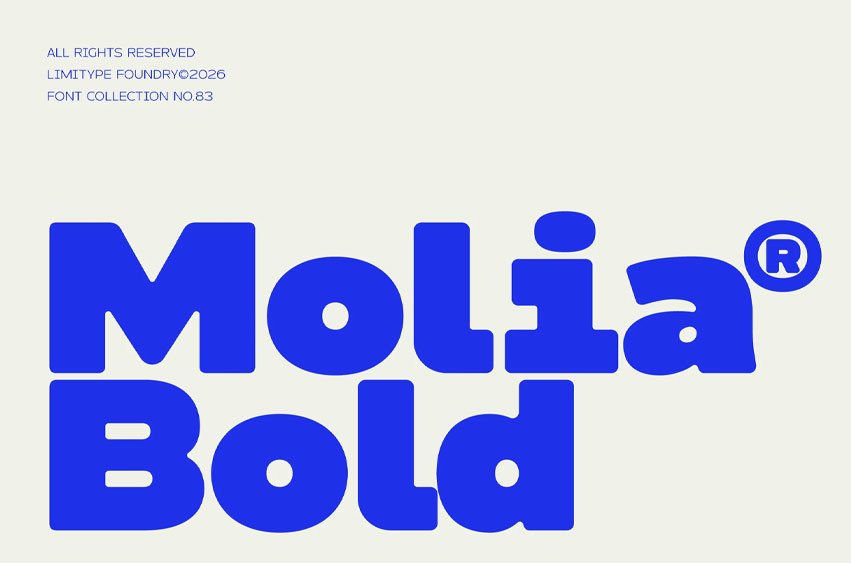
Molia Bold Font
Molia Bold Font is a modern bold sans serif typeface that blends the clarity of a monospaced structure with soft rounded grotesque forms, creating a balance between technical precision and friendly aesthetics.
Its clean, geometric yet approachable shapes make it ideal for branding, digital interfaces, editorial layouts, posters, and logotype design, delivering a strong and confident presence in modern typography.